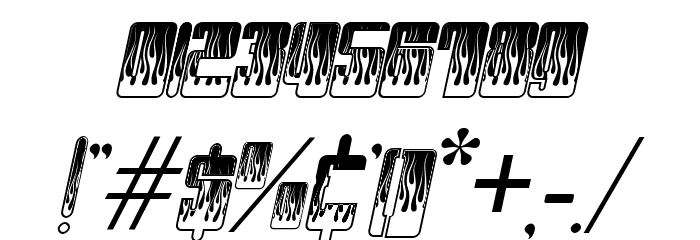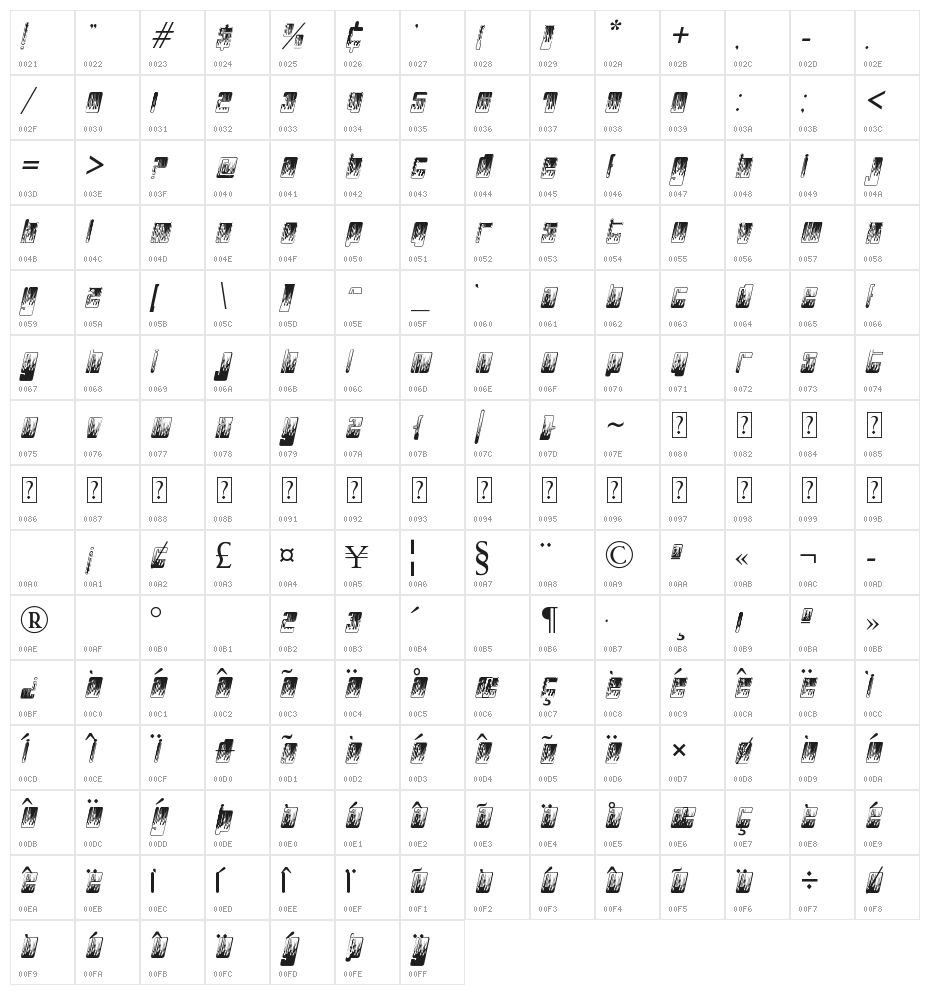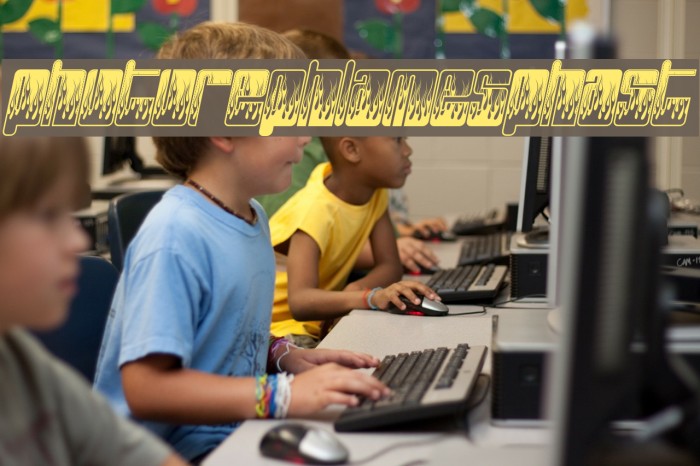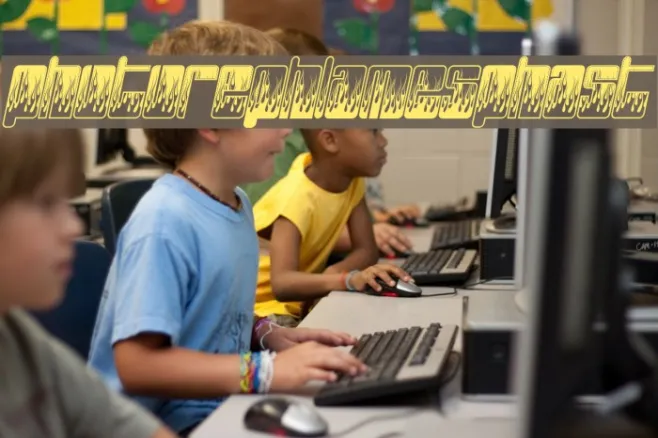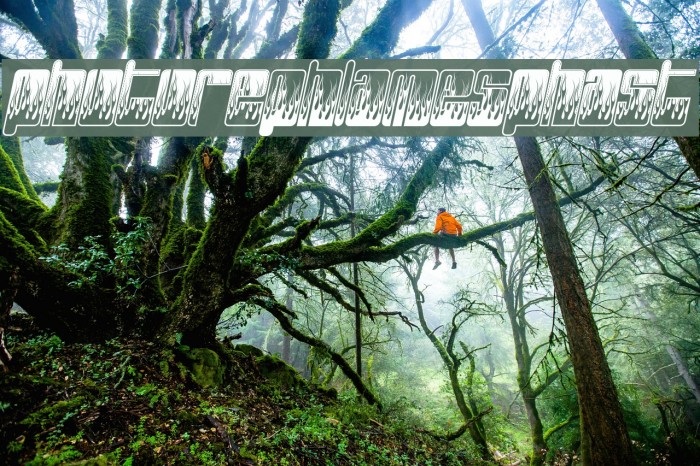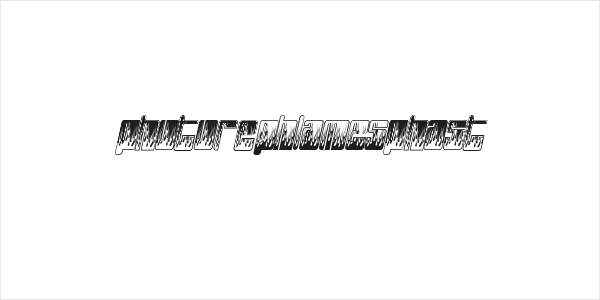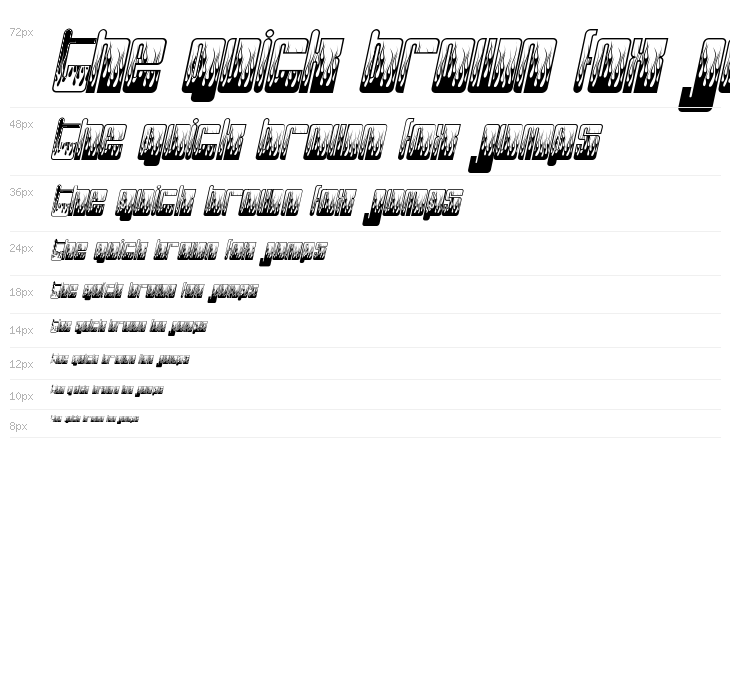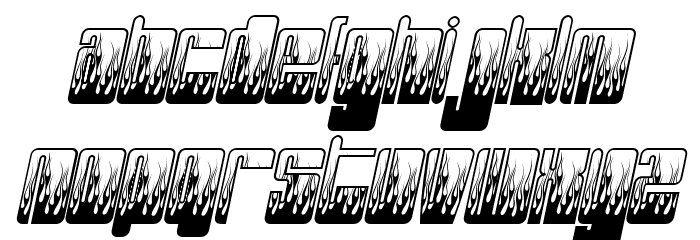
PHUTUREphlamesPHAST Font
PHUTUREphlamesPHAST Description
This font features a bold, dynamic style with a unique flame-like design integrated into each character. The letters have a distinct, edgy appearance, with the flames giving a sense of movement and energy. The uppercase and lowercase letters maintain a consistent design, with the flames creating a dramatic effect. The numbers and special characters follow the same fiery theme, ensuring a cohesive look across all elements. This font is perfect for projects that require a bold, eye-catching aesthetic.
Proposed ProjectsIdeal for use in posters, album covers, event flyers, and any design that needs a striking, energetic look.